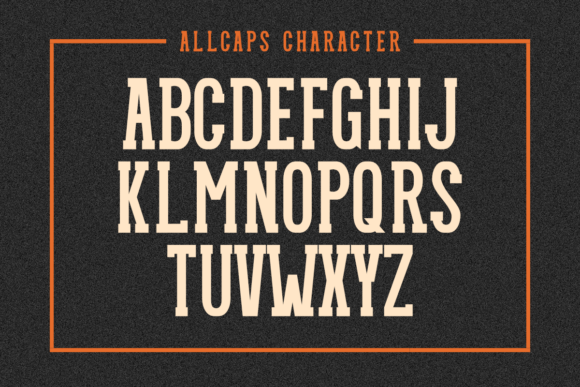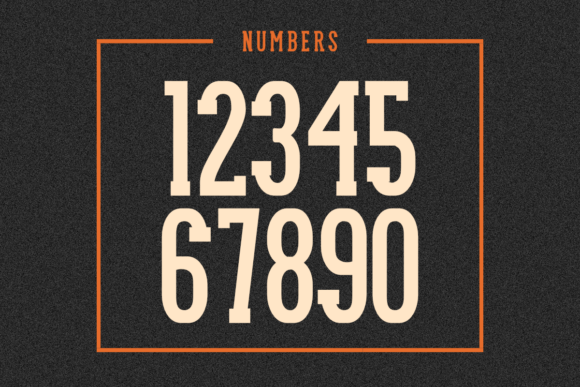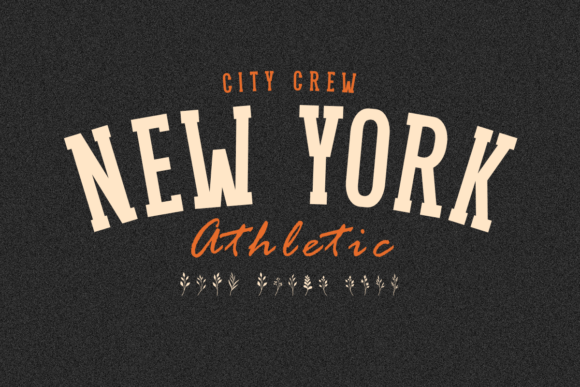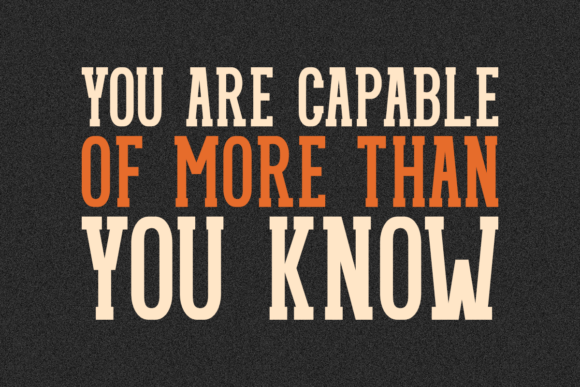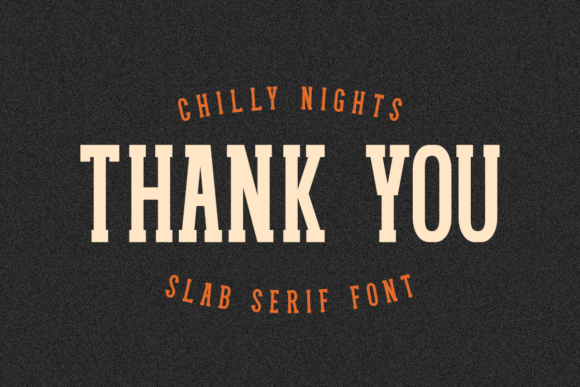
Introducing Chilly Nights Font: The Ultimate Choice for Bold and Stylish Designs
In the world of typography, a font can make or break a design. If you’re looking for a typeface that exudes both vintage charm and modern strength, look no further than Chilly Nights Font. This bold and stylish slab serif font is perfect for designers and crafters who want to make a strong impression on their projects. Whether you’re creating print on demand products, film titles, branding materials, or editorial designs, Chilly Nights is the perfect choice.
What Makes Chilly Nights Font Stand Out?
Chilly Nights Font boasts sturdy serifs and tall letterforms, giving it a unique and commanding presence. Its slab serif design blends the classic appeal of vintage typography with the robustness needed for modern projects. This versatility makes it an excellent choice for a wide range of applications, from bold headlines and vintage-inspired graphics to professional marketing materials and cinematic visuals.
Perfect for Print On Demand (POD) Creations
For those involved in print on demand (POD) projects, Chilly Nights Font is a game-changer. Its bold and stylish appearance makes it ideal for products such as:
- T-shirts: Create eye-catching apparel that stands out from the crowd.
- Mugs: Design unique and stylish coffee mugs that make perfect gifts or personal items.
- Posters: Produce bold and impactful posters for advertising, events, or decor.
- Tote bags: Add a touch of personality to tote bags with this versatile font.
With Chilly Nights, you can elevate your POD creations and make them more appealing to your audience.
Beyond POD: Versatility in Various Design Projects
The uses of Chilly Nights Font extend far beyond print on demand. Its robust and stylish design makes it suitable for:
- Film Titles: Add a touch of drama and sophistication to your film and video project titles.
- Branding: Create a strong and memorable brand identity with this impactful font.
- Packaging: Stand out on store shelves with bold and stylish packaging designs.
- Editorial Design: Enhance your editorial projects, such as magazines and newspapers, with its commanding presence.
Crafting and Cutting Projects
For crafters and DIY enthusiasts, Chilly Nights Font is an excellent choice for:
- Cricut and Silhouette cutting projects: Use this font to create custom vinyl decals, iron-on designs, and more.
- Logo Design: Craft unique and impactful logos for your business or personal brand.
- Cinematic Visuals: Enhance your video and film projects with bold and stylish titles and graphics.
Chilly Nights Font is a versatile and impactful typeface that blends vintage charm with modern strength. Its bold and stylish design makes it perfect for a wide range of applications, from print on demand creations and film titles to branding, packaging, and editorial design. With its sturdy serifs, tall letterforms, and compatibility with various design software, Chilly Nights is an excellent choice for designers and crafters looking to make a strong impression. Whether you’re creating bold headlines, vintage-inspired graphics, or professional marketing materials, Chilly Nights Font delivers both impact and style.